The “Urban Decay font” isn’t a single typeface but a popular aesthetic. It’s characterized by grunge, gothic, or edgy sans-serif styles, often appearing distressed, stencil-like, or with a unique hand-drawn feel, perfect for branding that aims for bold, rebellious, or artistic statements.
Ever stumbled upon a design that just screams “cool,” “edgy,” or “unconventional”? Chances are, you’ve encountered a font that evokes the “Urban Decay” vibe. This isn’t about a specific font from a brand called Urban Decay, but rather a style that captures the essence of urban art, street culture, and a touch of rebellious spirit.
Finding the right font can feel overwhelming, especially when you want to convey a strong, unique message for your brand or project. But don’t worry! We’re here to break down what makes a font feel “Urban Decay” and how you can use it effectively. Get ready to discover fonts that add that perfect touch of grit and style to your designs!
Unpacking the “Urban Decay Font” Aesthetic
When we talk about the “Urban Decay font” aesthetic, we’re not pointing to a single, officially named typeface found in every design software. Instead, it’s a descriptive term for a group of fonts that share certain characteristics. Think of it as a mood or a style that designers use to evoke specific feelings. This style often draws inspiration from:
- Street Art and Graffiti: Sprayed textures, bold lettering, and often a sense of urgency.
- Industrial Environments: Stencil-like appearances, weathered metal, and raw materials.
- Gothic and Alternative Subcultures: Darker themes, sharp edges, and a sense of mystery.
- Hand-Drawn Imperfection: Slightly irregular lines, unique strokes, and a less polished feel.
These fonts are typically sans-serif, meaning they lack the small decorative strokes (serifs) at the ends of letters. This gives them a cleaner, more modern base, which is then often altered to create the “decayed” or “urban” effect.
Key Characteristics of Urban Decay Style Fonts
What exactly makes a font fit into this edgy category? Let’s look at the common traits:
- Distressed Textures: This is a hallmark. Fonts might appear to have grit, cracks, or a worn-out look, as if they’ve been printed on a rough surface or exposed to the elements.
- Stencil Effects: Some fonts mimic the look of stencils, with small gaps or cuts in the letterforms, common in industrial signage and graffiti.
- Bold and Blocky Shapes: Often, these fonts are strong and assertive, with thick strokes and clear, defined letterforms.
- Asymmetry or Irregularity: Unlike meticulously crafted fonts, some “Urban Decay” styles embrace slight imperfections, giving them a more organic, hand-crafted feel.
- Monochromatic or Gritty Palettes: While not part of the font itself, this style is frequently paired with black, white, grey, or muted, earthy tones, enhancing its raw appeal.
These characteristics combine to create a visual impact that is anything but ordinary. They speak of authenticity, rebellion, and a connection to the pulse of the city.
Where the “Urban Decay Font” Aesthetic Shines
This font style isn’t for every project, but when used correctly, it can be incredibly powerful. It’s particularly effective in certain contexts:
- Branding for Alternative Lifestyles: Think skate shops, tattoo parlors, streetwear brands, independent music labels, or art galleries. These fonts instantly communicate a brand’s non-conformist identity.
- Event Promotion: Concert posters, underground club nights, or art exhibitions can benefit from the raw energy this aesthetic brings.
- Creative Portfolios: Designers and artists wanting to showcase a bold, edgy style in their personal branding or project presentations.
- Gaming and Entertainment: Used in game interfaces, movie titles, or promotional materials for titles with a gritty, urban, or dystopian theme.
- Apparel and Merchandise: T-shirts, hoodies, and accessories that aim for a statement piece.
The key is to ensure the font choice aligns with the overall message and target audience of your project. A well-chosen font can elevate your design from simply looking good to telling a compelling story.
Finding Fonts with an “Urban Decay” Feel: Practical Steps
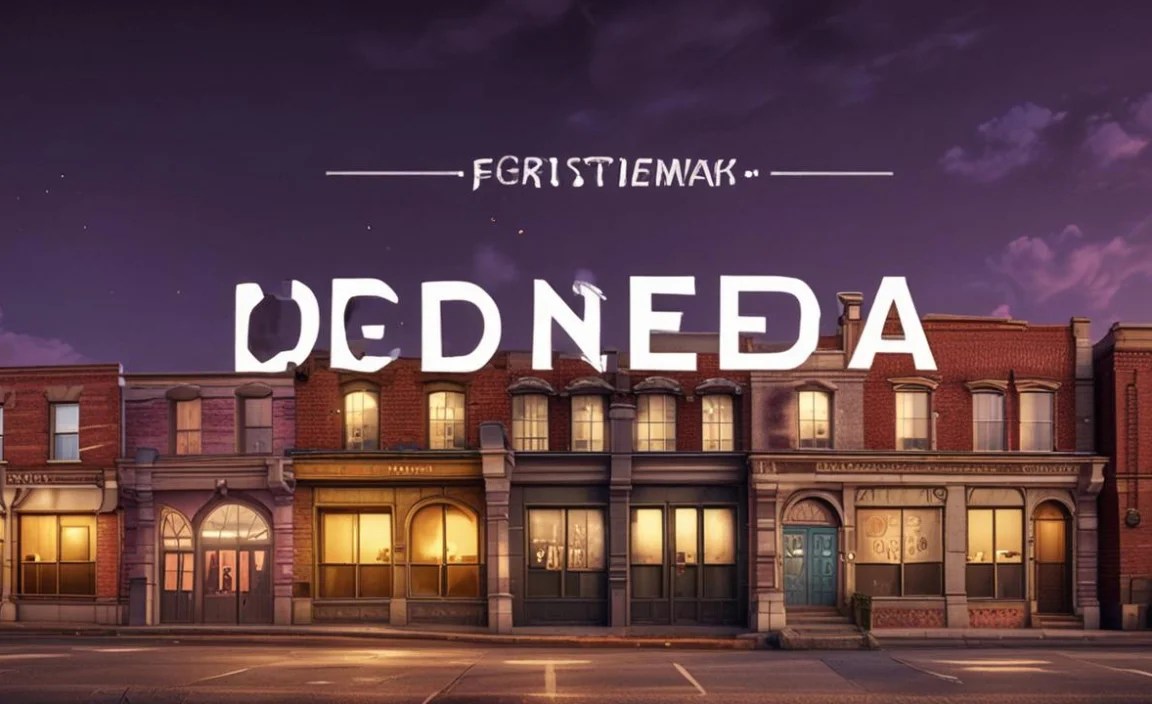
Since “Urban Decay font” is a style, not a specific font, how do you find such typefaces? Here’s a beginner-friendly approach:
1. Explore Font Libraries and Marketplaces
Many online platforms offer a vast selection of fonts. When searching, use keywords that describe the aesthetic:
- Keywords to Try: “Grunge font,” “stencil font,” “distressed font,” “industrial font,” “graffiti font,” “street font,” “urban font,” “edgy font,” “display font,” “bold sans serif,” “rough font.
Some popular places include:
- Google Fonts: Offers a good selection of free, high-quality fonts that can lean into this style. Look for robust sans-serifs you can style further or those with inherent distressed qualities.
This style is excellent for branding alternative or edgy businesses like streetwear, skate shops, tattoo parlors, independent music labels, and art galleries. It’s also great for event posters, band merchandise, movie titles with a gritty theme, and personal creative portfolios where you want to showcase a bold, unconventional aesthetic.
Q6: What is the difference between a stencil font and a grunge font?
A stencil font typically features small breaks or gaps in the letterforms, mimicking how stencils work to apply ink or paint.